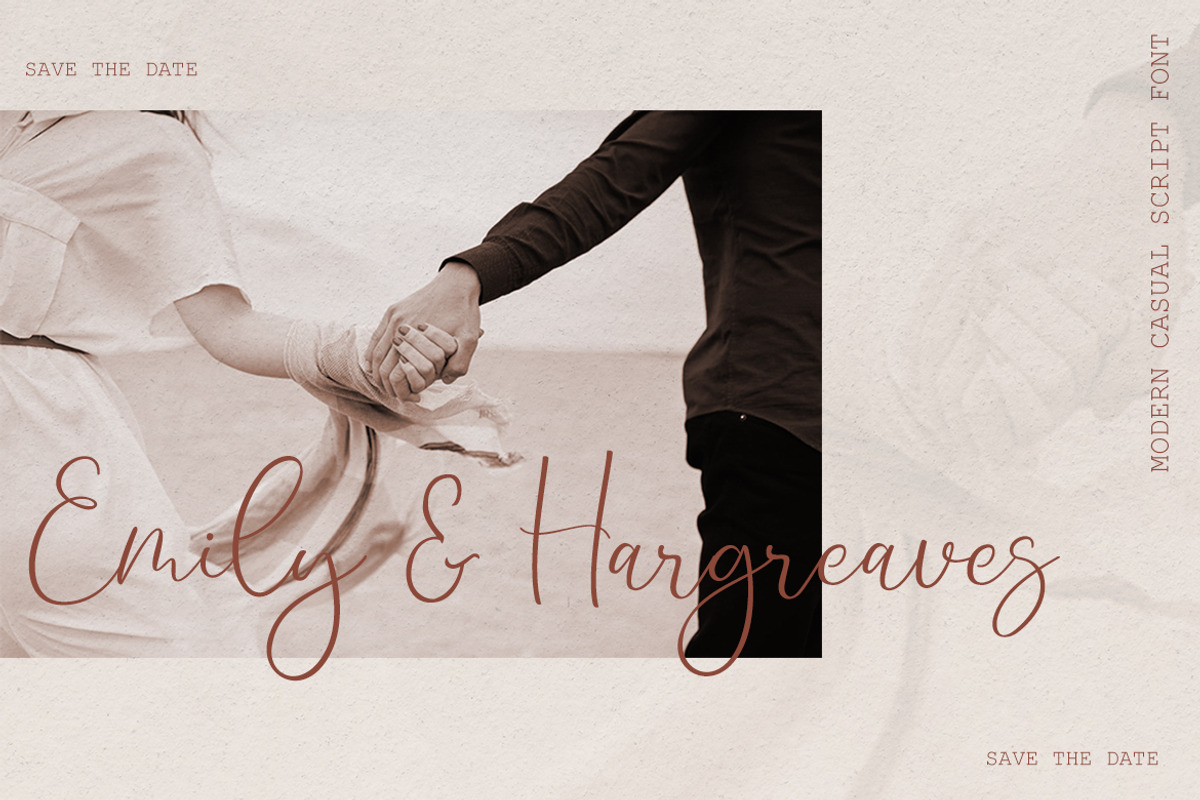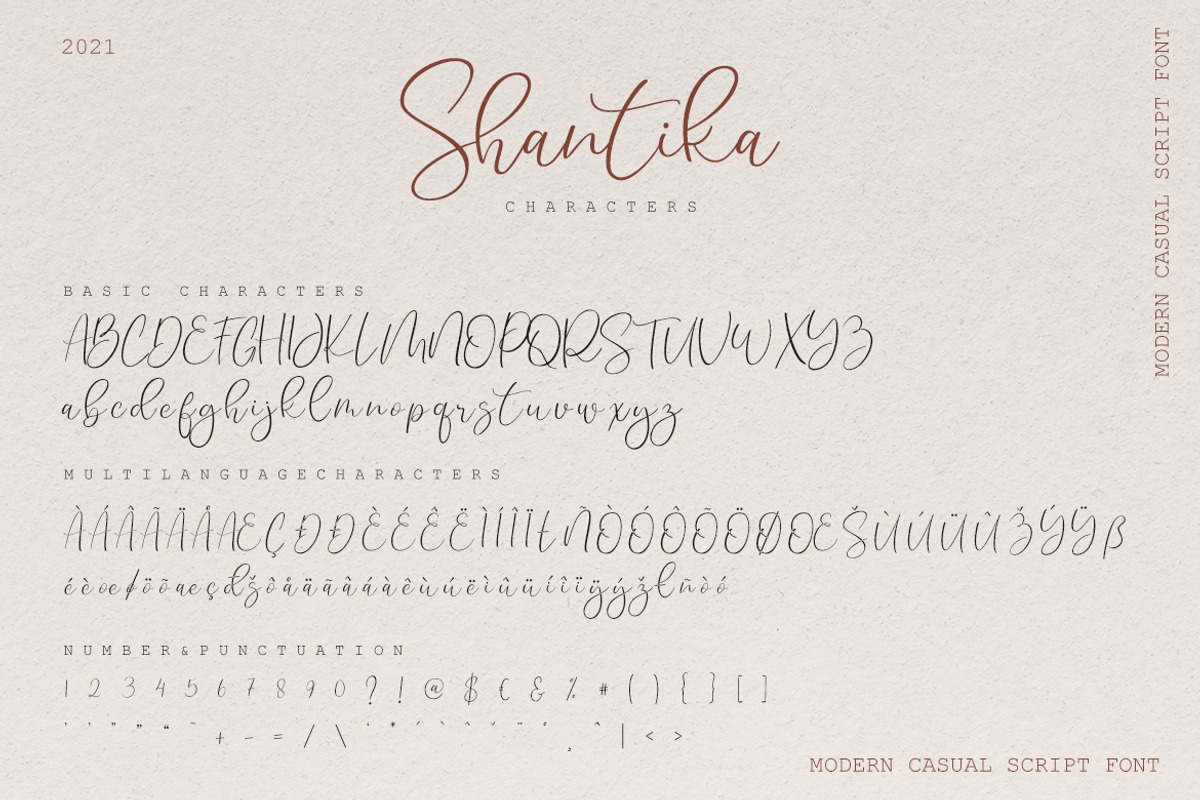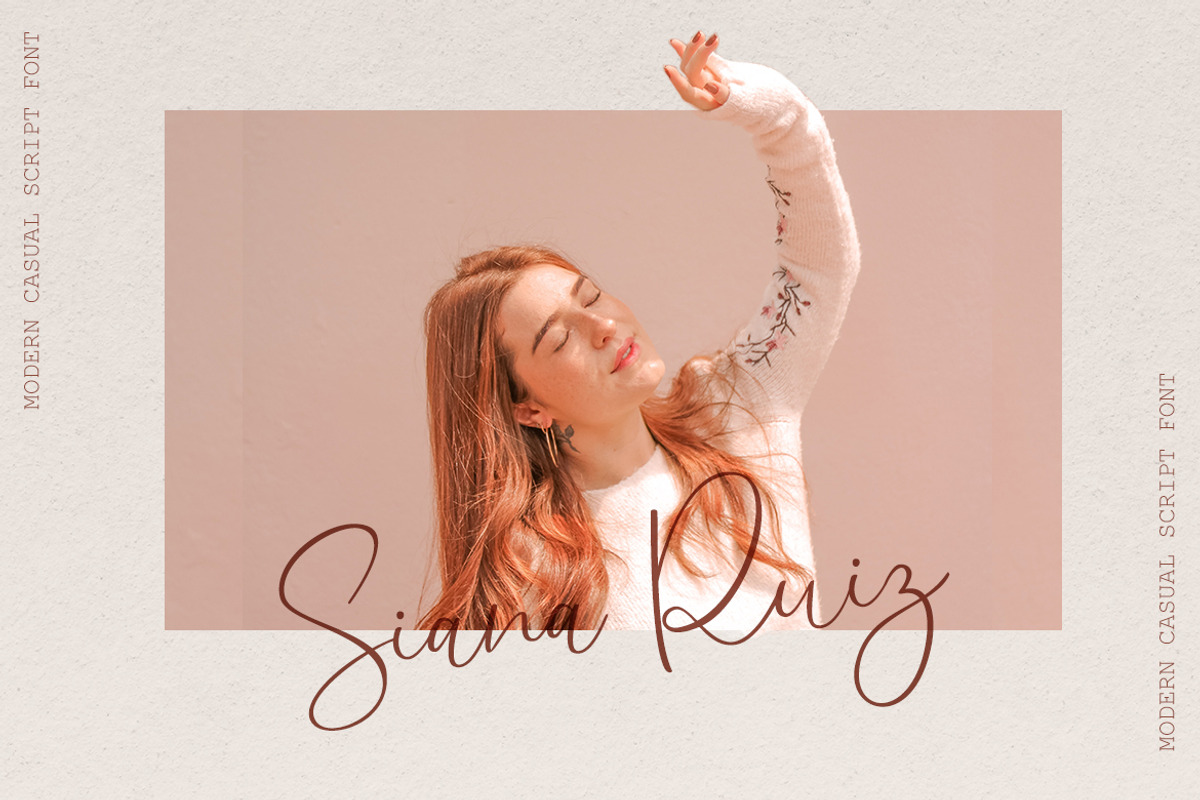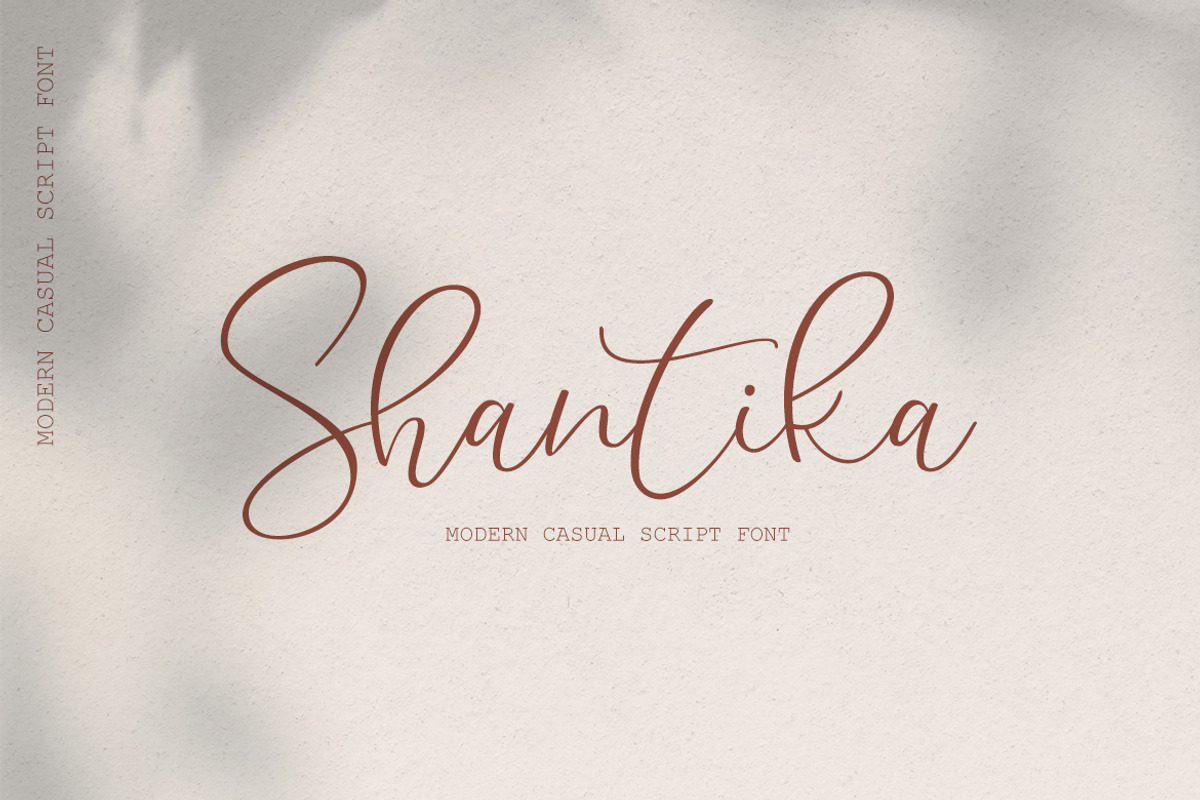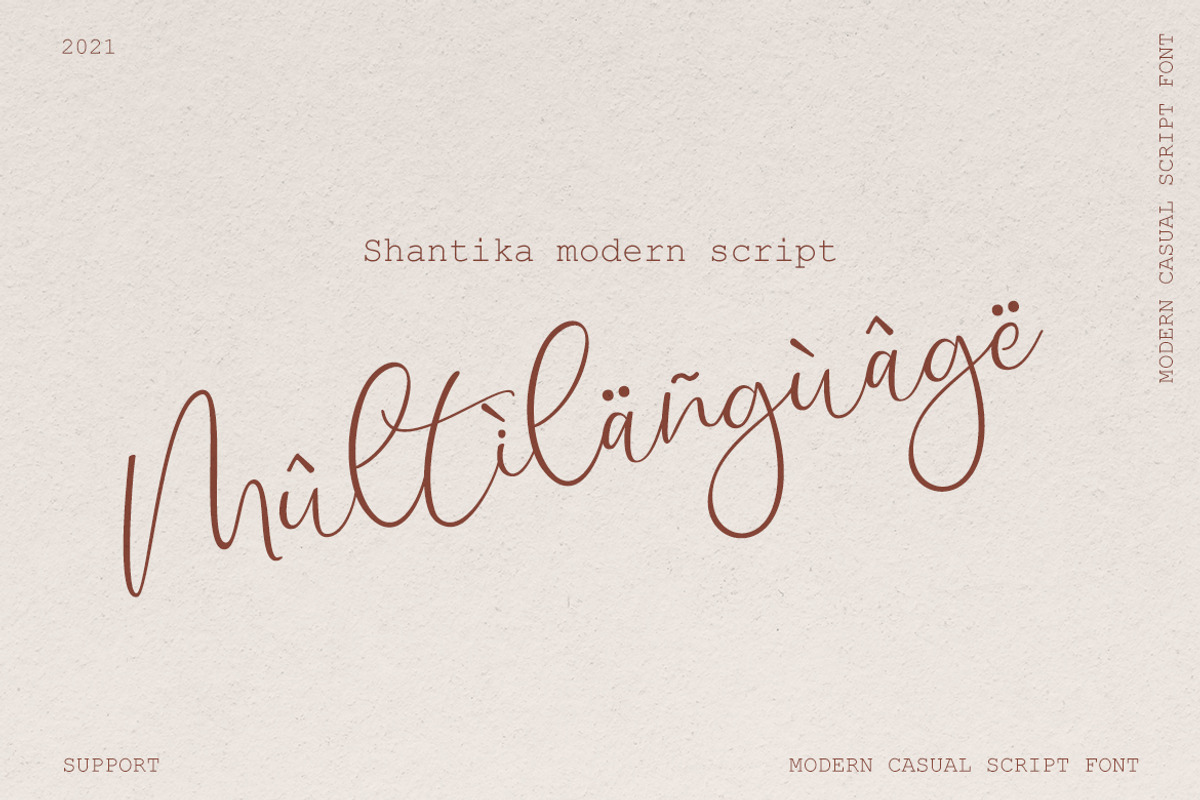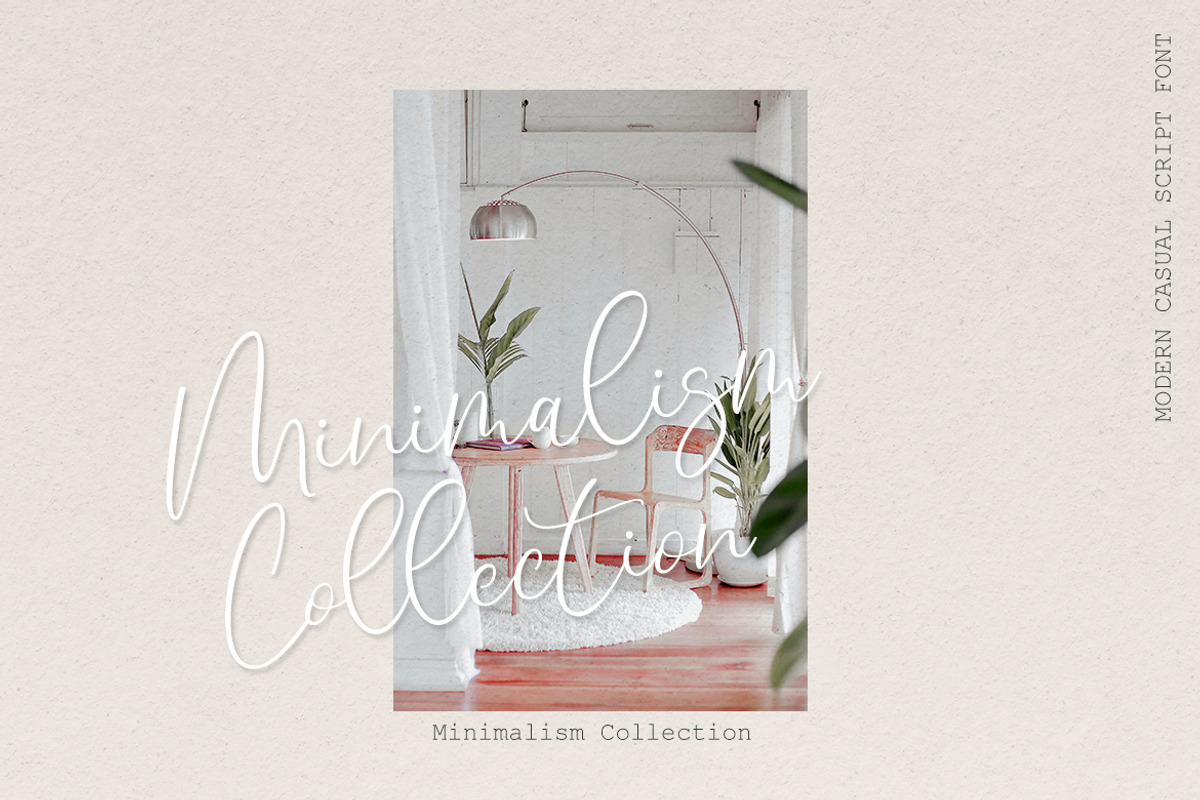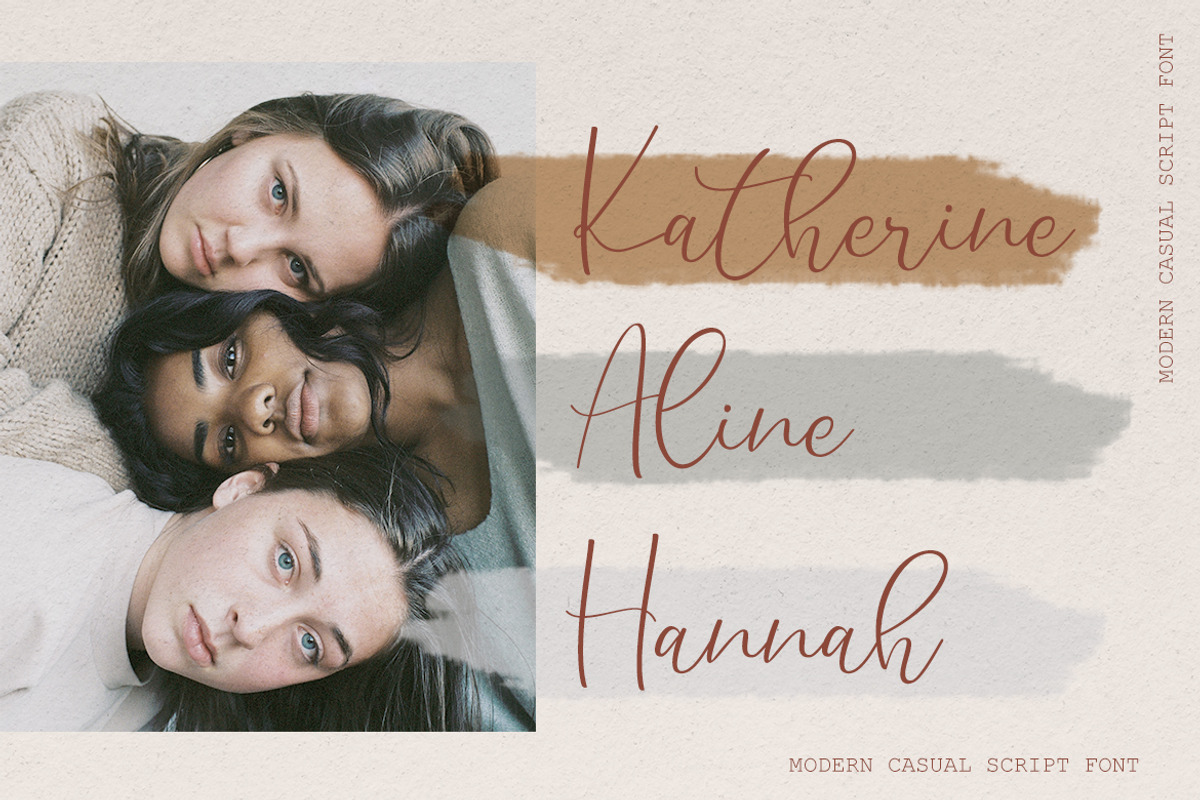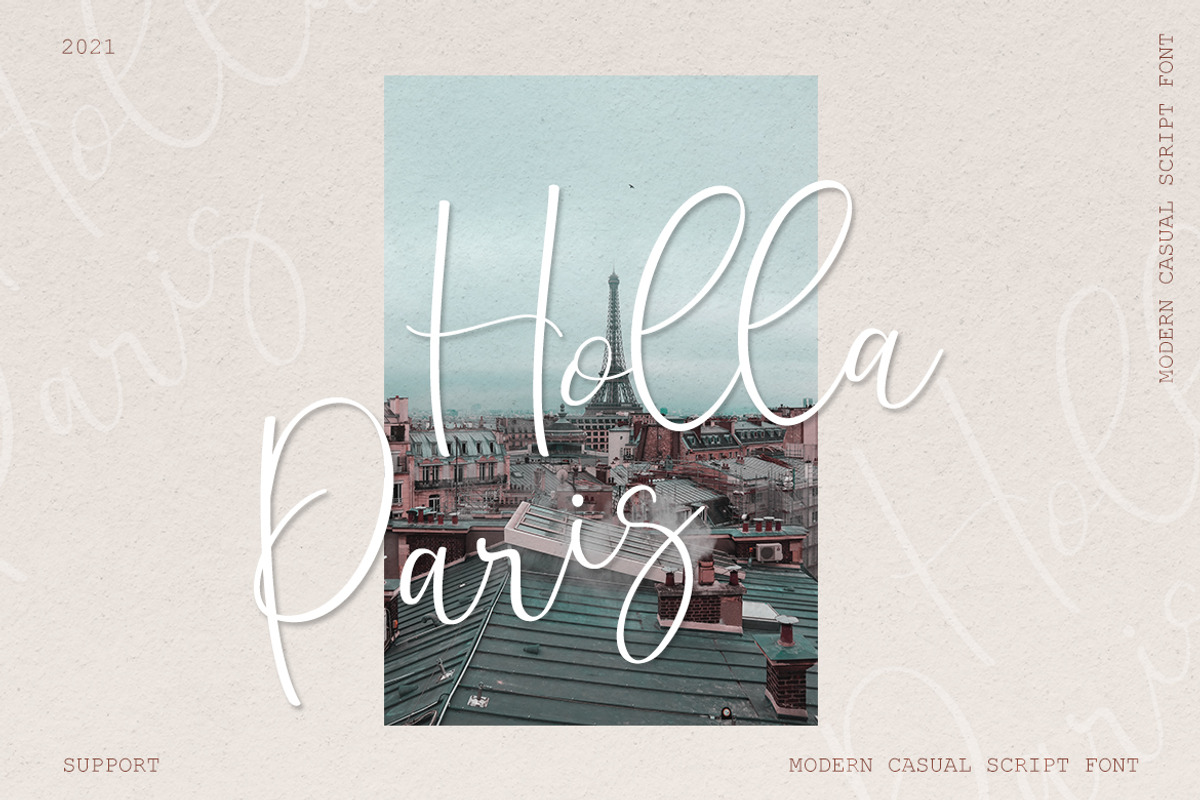
Shantika
Shantika is a new casual modern script font. designed to work together in harmony, to produce a plethora of beautiful, sophisticated & feminine designs. The luxurious modern script works perfectly together with the delicate hand drawn - ideal for elegant branding projects, greeting cards, fashion magazine, packaging, social media, logo design and of course, wedding invitations.